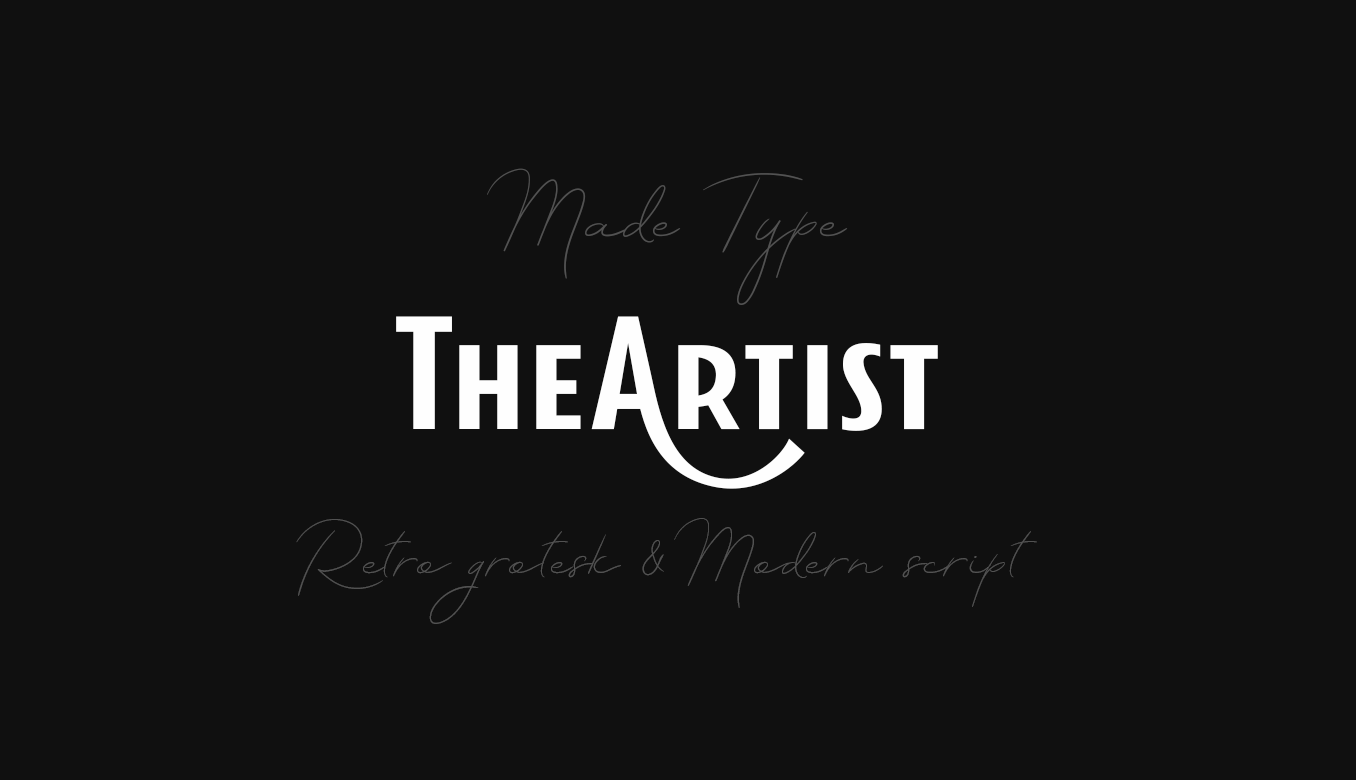
TheArtist Duo Fonts
Introducing TheArtist Duo Fonts! TheArtist designed and shared by MadeType. MADE TheArtist is a duo fonts – retro grotesk and modern script with Extras. MADE TheArtist Sans is equipped with Swash alternates. MADE TheArtist is great for any kind of display use from online to packaging to posters or identities.